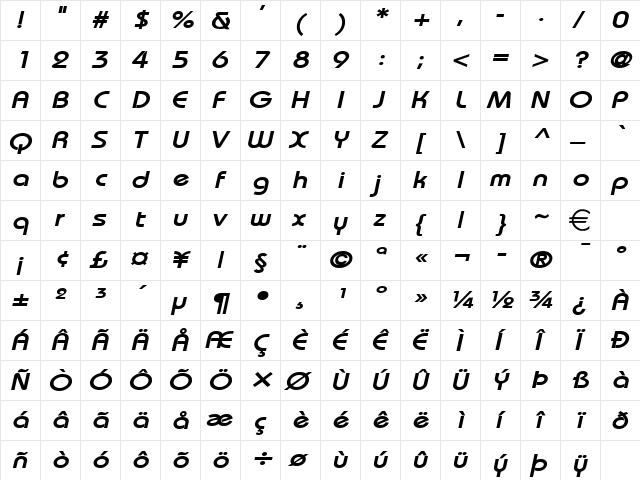
BiminiWide BoldItalic Font Preview
Design Context for BiminiWide Typeface
BiminiWide takes a measured approach to typography — its balanced proportions and neutral character make it a reliable workhorse for both digital and print work. The slanted form adds forward momentum and visual energy. The heavy weight commands attention and anchors typographic hierarchies.
Pro Tip: Try BiminiWide for annotation and caption copy alongside an upright companion — the contrast in angle creates a dynamic but ordered typographic system.